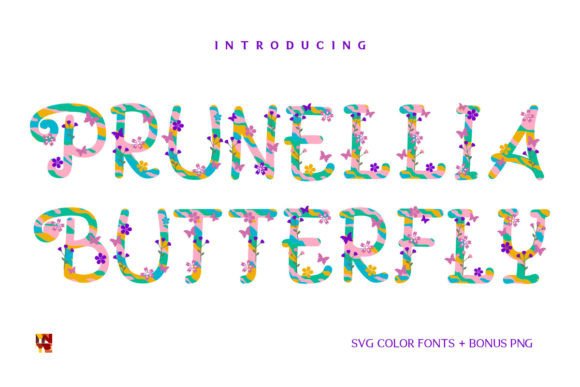
In the realm of digital art and design, colors dance upon the canvas of creativity, weaving tales of joy, wonder, and expression. Behold, Prunellia Butterfly, a font that captures the essence of vibrant hues and delicate forms, transforming your artistic vision into a captivating symphony of color.
Dive into the world of Prunellia Butterfly, where every letter carries the spirit of nature's artistry. Each stroke bursts with a vibrant color palette, a harmonious blend of hues that dances across the screen like a kaleidoscope of dreams.
With Prunellia Butterfly at your fingertips, unleash your imagination and explore the endless possibilities that await. Design eye-catching logos that radiate joy, create social media graphics that captivate audiences, or add a touch of enchantment to your digital illustrations. The possibilities are as boundless as your own creativity.
Imagine your words taking flight, adorned with the whimsical charm of Prunellia Butterfly. Craft invitations that bloom with beauty, greeting cards that warm hearts, or website designs that exude an aura of elegance and cheer. Each project becomes a canvas for your artistic expression, imbued with the magic of this extraordinary font.
Prunellia Butterfly is more than just a font; it's an invitation to embark on a creative journey where colors ignite the imagination and beauty knows no bounds. Embrace the artistry of this font and let your creations burst forth with life, color, and boundless joy.